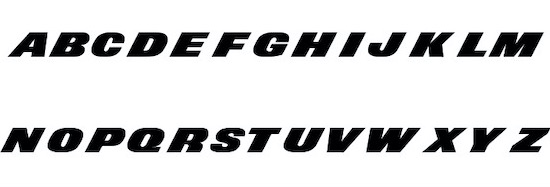
New York Jets Font
About the New York Jets font. But you also need to know that this is a pretty famous typeface. The New York Jets, known in recent times, are an American professional football team based in the New York metropolitan area. They are playing very well in the NFL. And they are an extremely active member of the American Football Conference (AFC) eastern branch of the league.
New York Jets Logo has a very clean look and feel, and with its flexible and uniform characters, you can use this typeface in most of your professional and amateur projects.
Not a manual and logical typeface with an old-fashioned design look. But we can recognize that the New York Jets Logo is inspired by the art and style of sign drawing. This Sans and Sports font is best used with distinctive alternative glyphs. Especially multi-language support to be compatible with most different design styles.
New York Jets is a geometric futuristic modern decorative sans font that is inspired by famous logos of sports and brands that have very strong characteristics and is very suitable for logotype, packaging, posters, branding, typography, magazines, packaging, Poster, brochures, and more.
New York Jets Logo Font